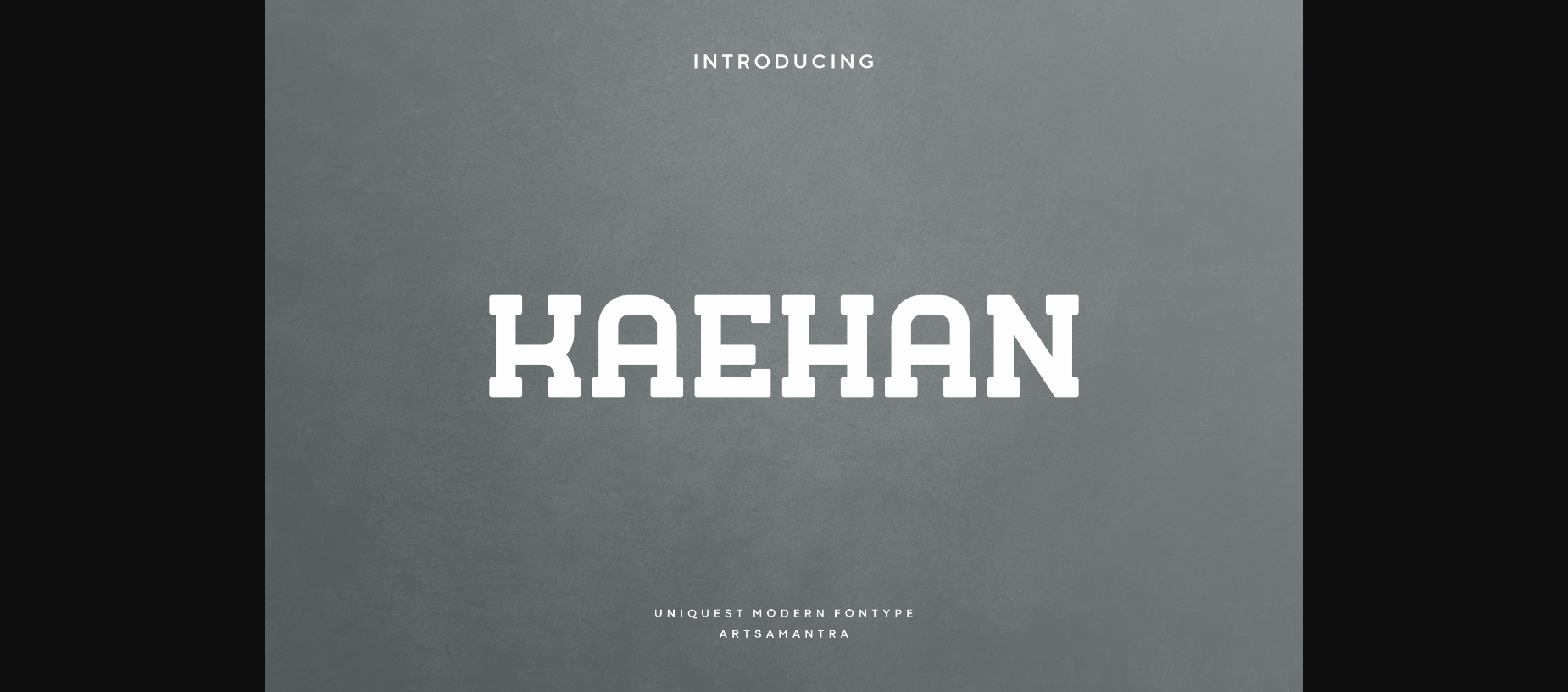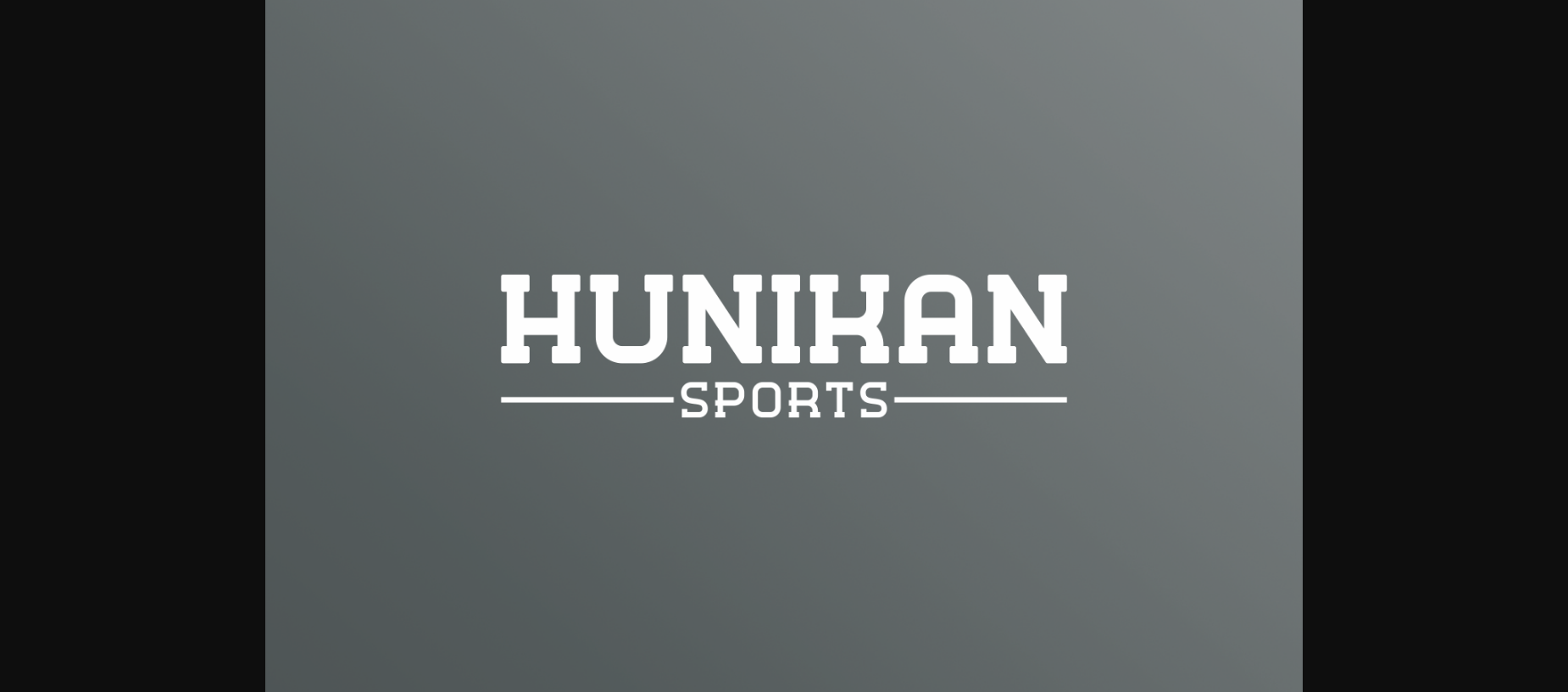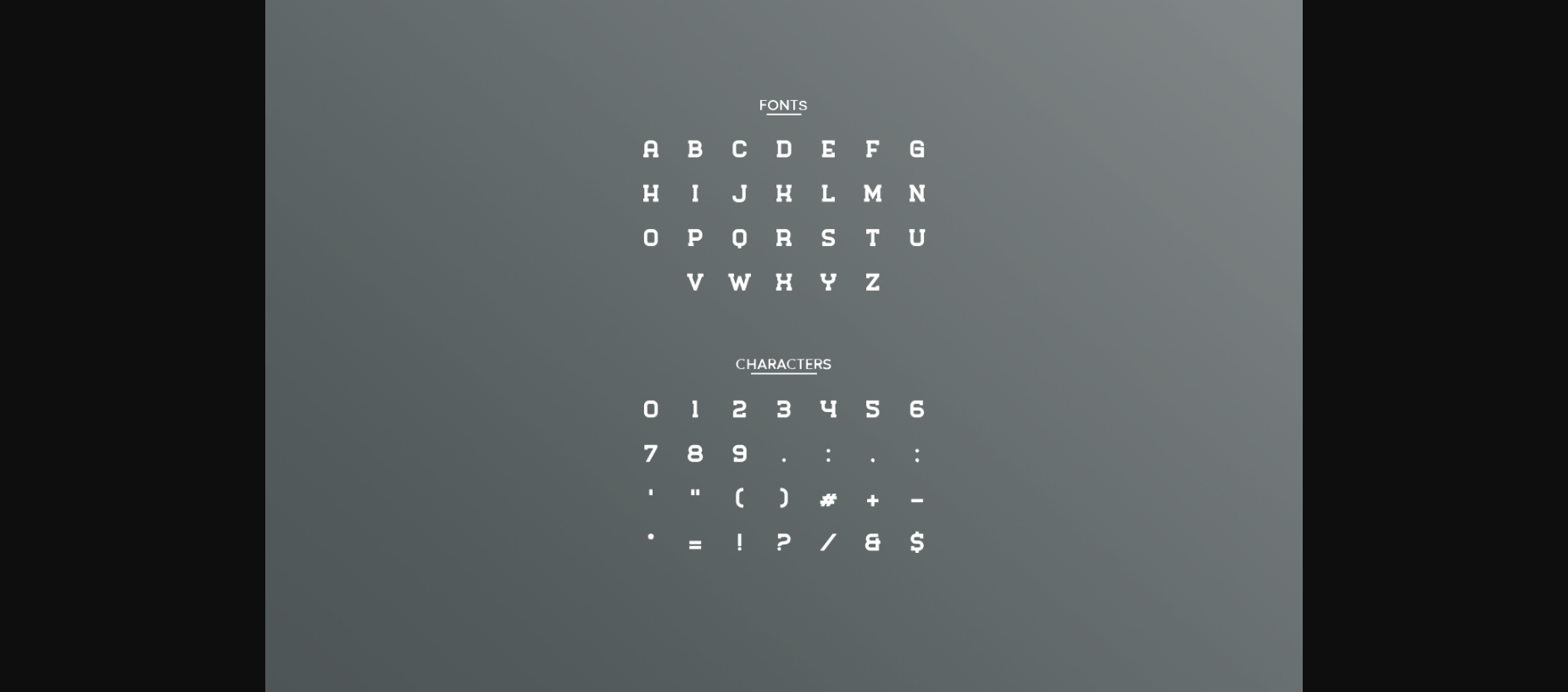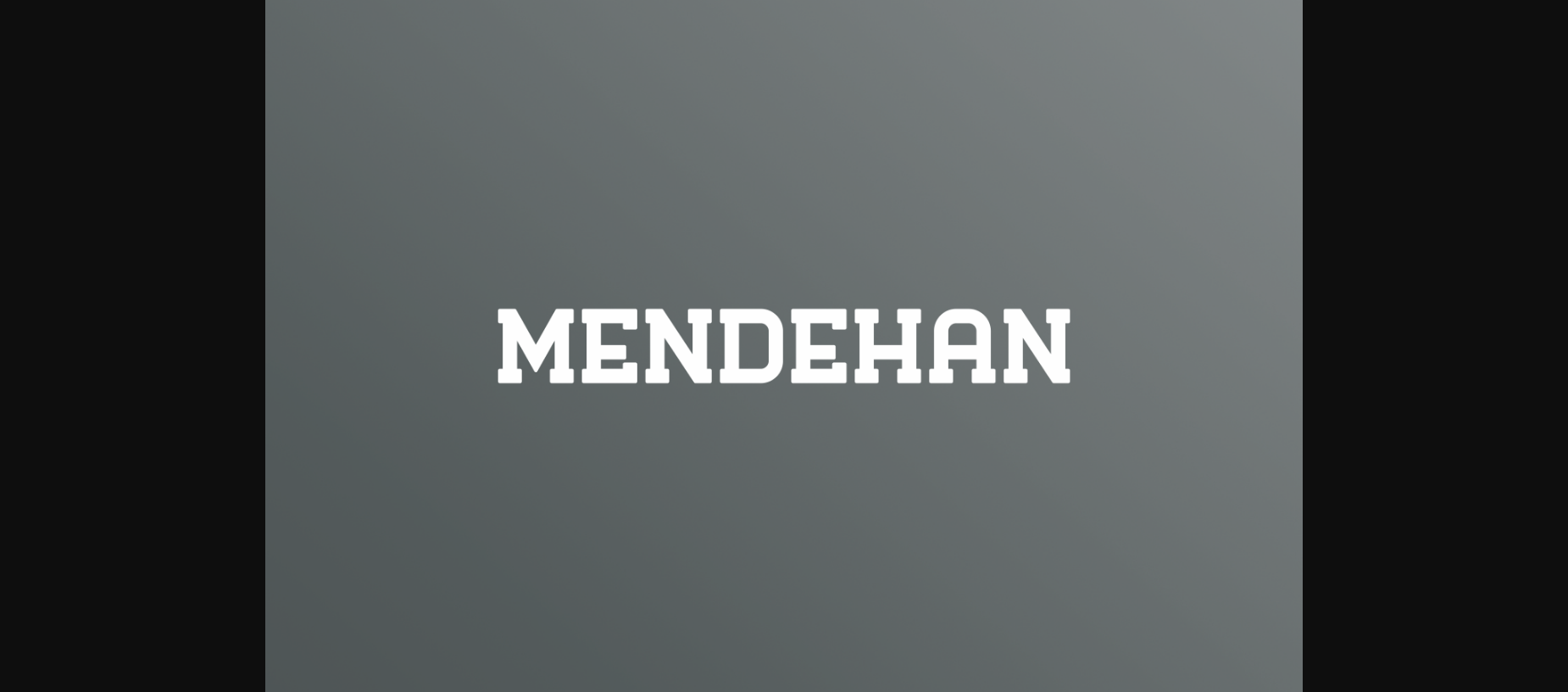
About Kaehan Font
Kaehan is a sports font, designed to draw attention and highlight any project that calls for a bold, powerful look. Perfect for sports designs, logos, headlines, posters, games, book covers, titles and many other projects. Add this font to your creative ideas and watch how it makes it stand out!